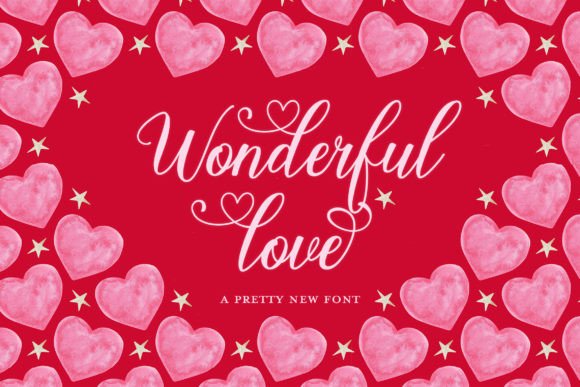
Welcome to the world of "Wonderful Love," a charming script font that captivates hearts with its enchanting flow and romantic spirit. Designed with love by Jupiter Studio, this font is a true masterpiece, meticulously crafted to bring your creative visions to life.
"Wonderful Love" is not just a font; it's an expression of your innermost emotions, a visual symphony that speaks volumes. With its graceful curves, playful hearts, and adorable characters, this font will effortlessly elevate your designs to new heights.
Imagine your wedding invitations adorned with the elegant strokes of "Wonderful Love," conveying the joy and love of your special day. Create birthday cards that burst with heartfelt messages, using this font to express your affection and care. Let your books and magazines come alive with the captivating allure of "Wonderful Love," transporting readers to a world of enchantment and wonder.
The possibilities are endless with "Wonderful Love." Its versatility extends to branding, product packaging, logos, and social media graphics, adding a touch of warmth and charm to your visual identity. Unleash your creativity and let "Wonderful Love" be your artistic muse, inspiring you to create designs that resonate with your audience.
This PUA-encoded font ensures effortless access to all the glyphs and swashes, making it a breeze to add those special touches that make your designs truly shine. With "Wonderful Love," you have the power to transform ordinary words into captivating expressions, leaving a lasting impression on your readers and customers.